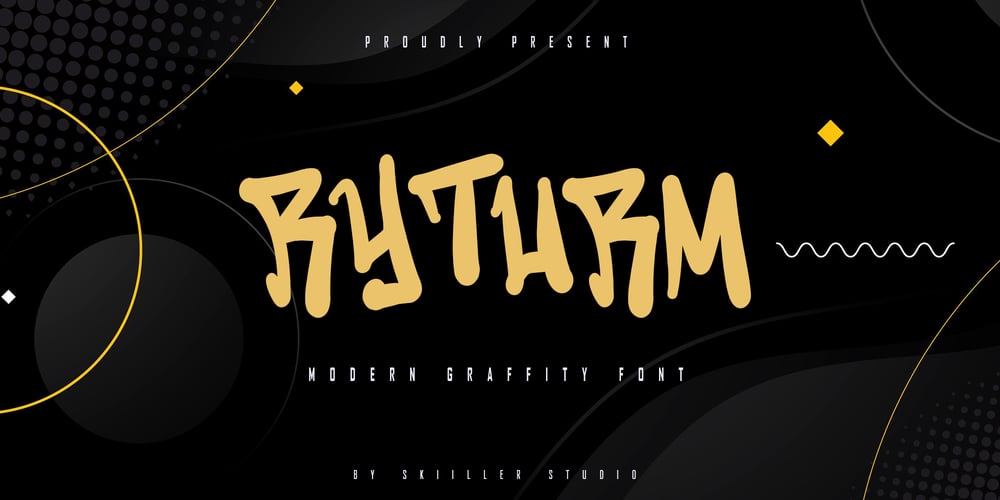
Ryturm Font Family was designed by Irfan Mahmudin and published by Skiiller Studio. Ryturm contains 1 styles and family package options. Ryturm a Graffity font. This font will very suitable for your fun project like children party, cute quotes, or any cute fun related projects. Grab it now !